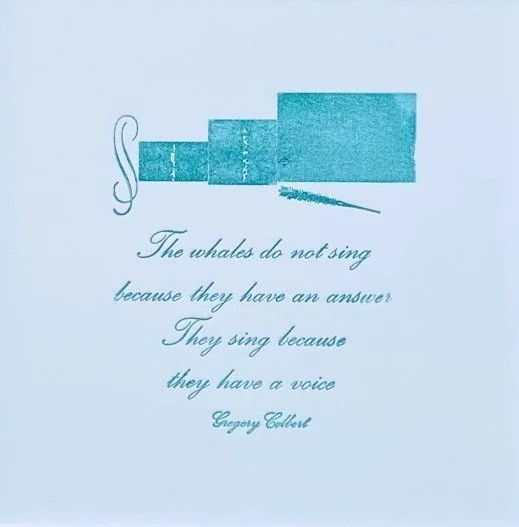
The prints feature a pair of quirky whales created from ornamental type details and upside down print block bodies. The prints come with a light cream mount which complements the sumptuous Somerset velvet paper. The text is set and printed by hand in metal type Dorchester and Marina script.
The Whales do not sing
because they have an answer
They sing because
they have a voice
This quote by GREGORY COLBERT features a whale with a wonderfully swishy tail piece and an ornamenta
bracket creates the baleen on his mouth. The whale on this print swims to the right.
The print with the whale swimming to the left makes excellent use of more beautiful ornamental type pieces for the tail and water spout along with a decorative bracket for the mouth. This little whale carries a quote by HERMAN MELVILLE
Dream tonight of Peacock tails
Diamond fields and Spouter Whales
Ills are many, blessings few
but dreams tonight will shelter you